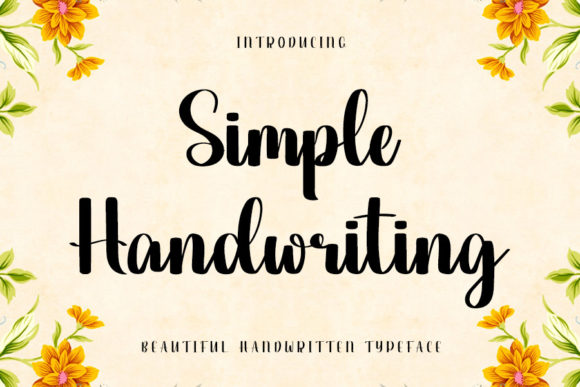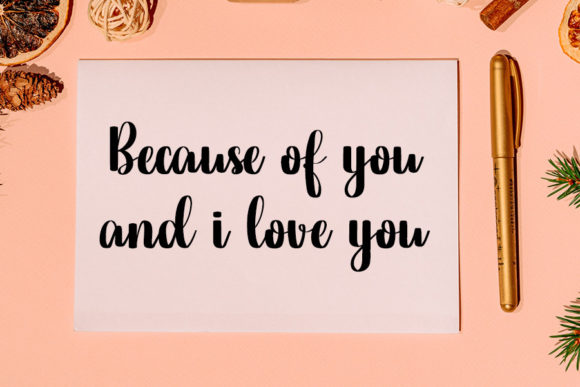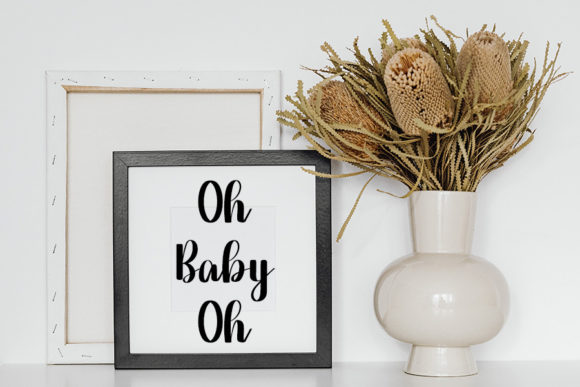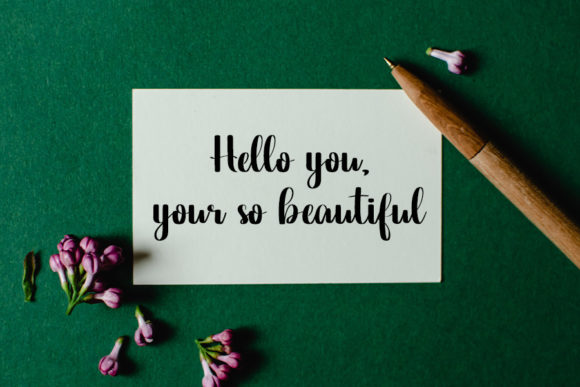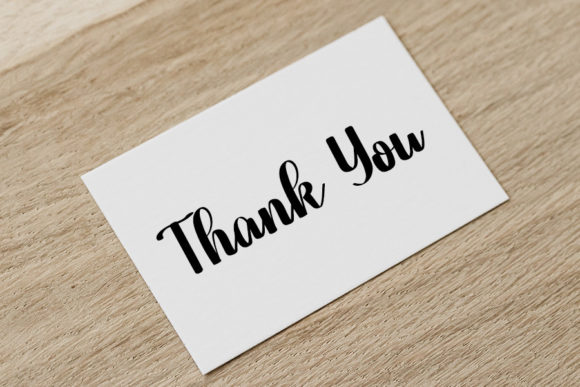
Simple Handwriting Font
“Simple Handwriting” is introduced as a lovely handwritten font designed to elevate your work with its elegant and curvy lines. Crafted with precision, this font combines simplicity and charm, making it suitable for a diverse range of design applications.
The use of terms like “lovely” and “elegant and curvy lines” emphasizes the font’s visual appeal. It suggests a charming and sophisticated quality, with the curves adding a touch of grace to the characters. This aesthetic quality is often sought after in design to convey a sense of beauty and refinement.
The versatility of “Simple Handwriting” is highlighted by suggesting its suitability for product packaging, branding projects, magazine covers, social media, weddings, and more. This versatility positions the font as a flexible tool that can seamlessly integrate into various design contexts, catering to the diverse needs of creative projects.
The mention of expressing words “above the background” implies that “Simple Handwriting” has the potential to create a visually striking and legible presence. This characteristic is crucial in design, ensuring that the font stands out and communicates effectively.
In summary, “Simple Handwriting” is presented as a lovely handwritten font with an emphasis on elegance and curvy lines. Its versatility across different design applications makes it a valuable asset for designers seeking a font that can effortlessly bring sophistication to their work.